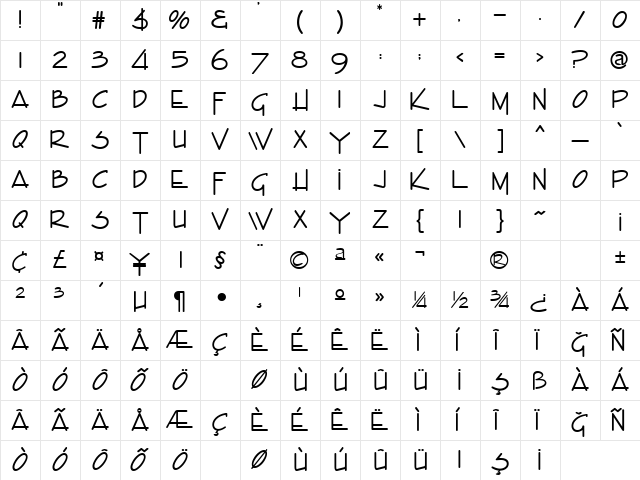
TR Enviro ITCNormal Free Font
TR Enviro ITCNormal
Style: ITCNormal
Complete TR Enviro ITCNormal glyph index. Displaying only characters natively supported by TR Enviro ITCNormal font.
Design Context for TR Enviro
TR Enviro is a composed and adaptable typeface that performs quietly and consistently across a wide range of design contexts.